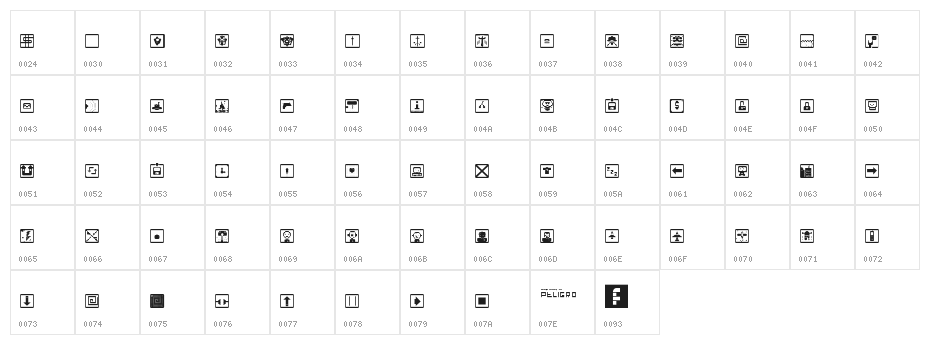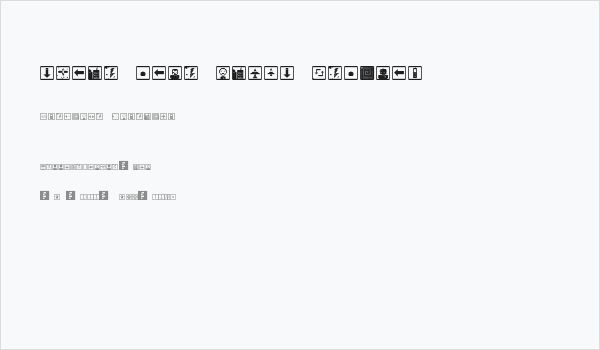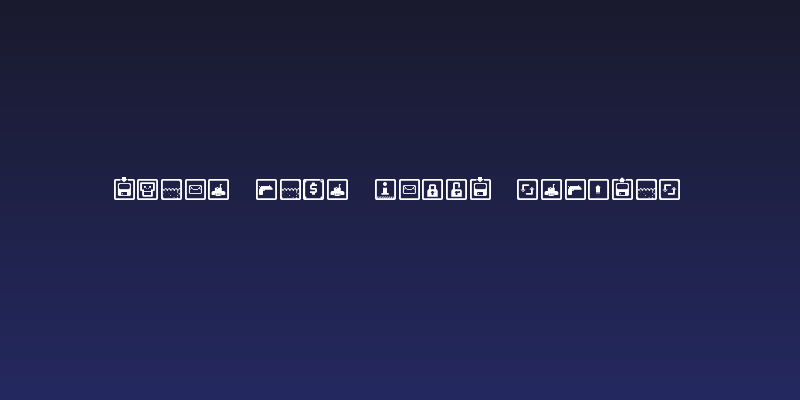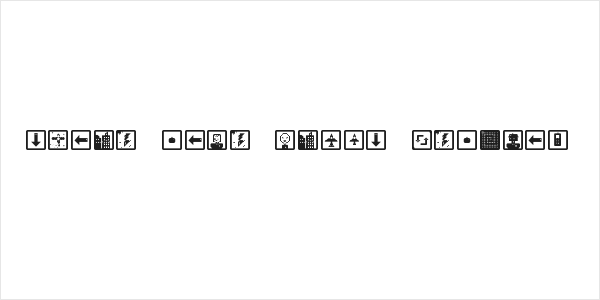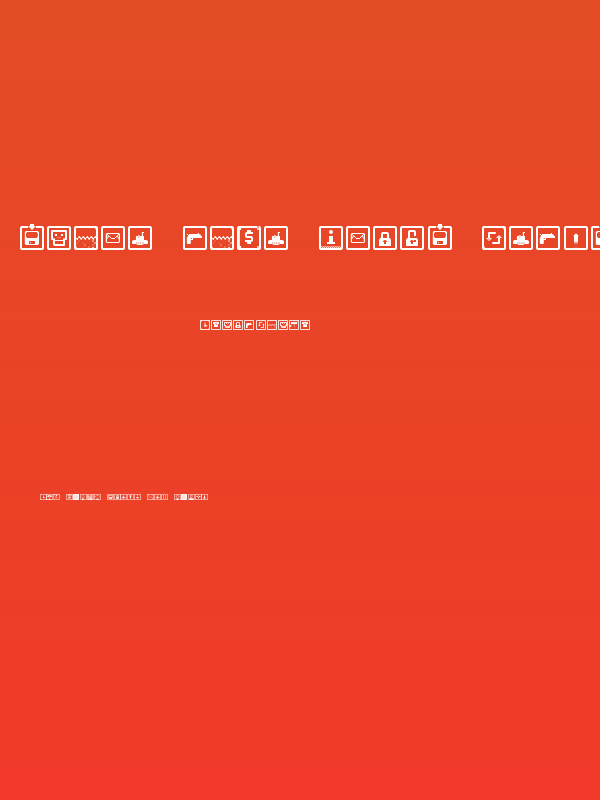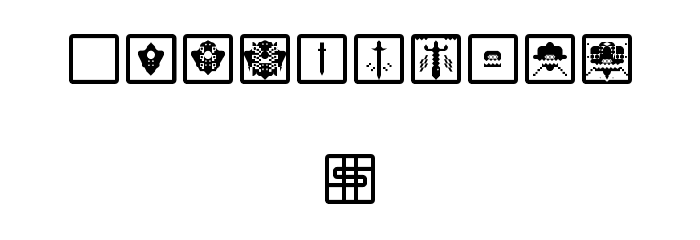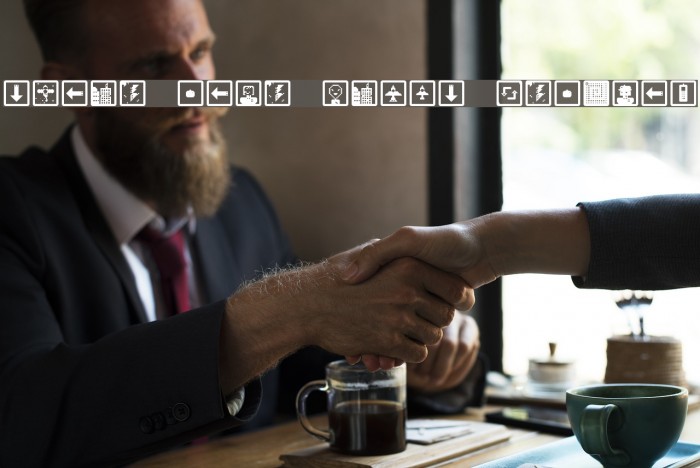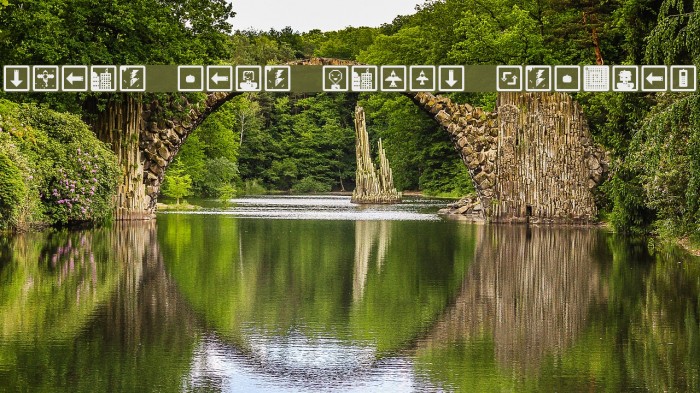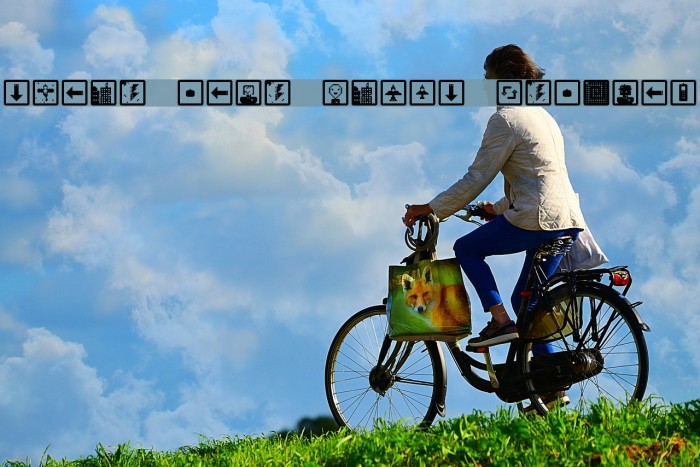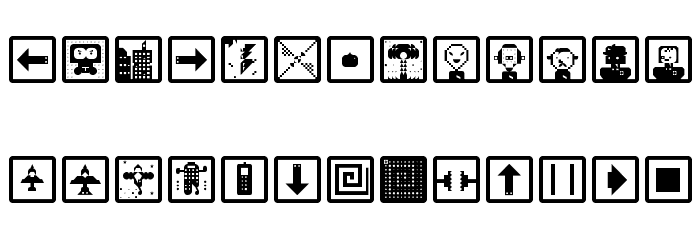
space game icons Regular Font
This set of icons features a pixelated, retro style reminiscent of classic video games. Each icon is enclosed in a square, providing a uniform and organized appearance. The icons depict various elements such as tools, buildings, characters, and symbols, all rendered in a simplistic, monochrome palette. The design is characterized by its blocky, pixelated aesthetic, which evokes a sense of nostalgia for early digital graphics. The icons are clear and easily recognizable, making them suitable for use in digital interfaces or games that aim to capture a vintage or arcade-like feel. The consistent use of thick outlines and minimal detail ensures that each icon is distinct and legible, even at smaller sizes.
| Use Case | Icons, Game Design, Digital Interfaces |
| Proposed Projects | Ideal for retro-themed video games, digital interfaces, or applications seeking a vintage arcade look. |